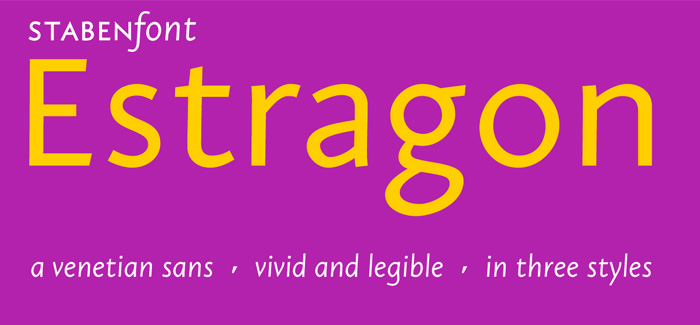
Estragon Pro font
Estragon Pro font is a vivid sans-serif text face with venetian influences, suitable especially for books. It is remarkable for: its light slant, to the right, for most of the verticals, its small sized uppercase letters making it suitable for languages where they are often used (for example German,) and its just lightly inclined true italics.
For a wide language support, Estragon contains a lot of accented characters including the polish kreska. It is generously equipped with ligatures, special and alternate characters as well as various kinds of numbers: besides the standard old-style figures to be set as part of text copy there are small-cap and tabular numbers as well as a set of fraction figures. Estragon comes with two weights, uprights and true italics, each with small-caps.